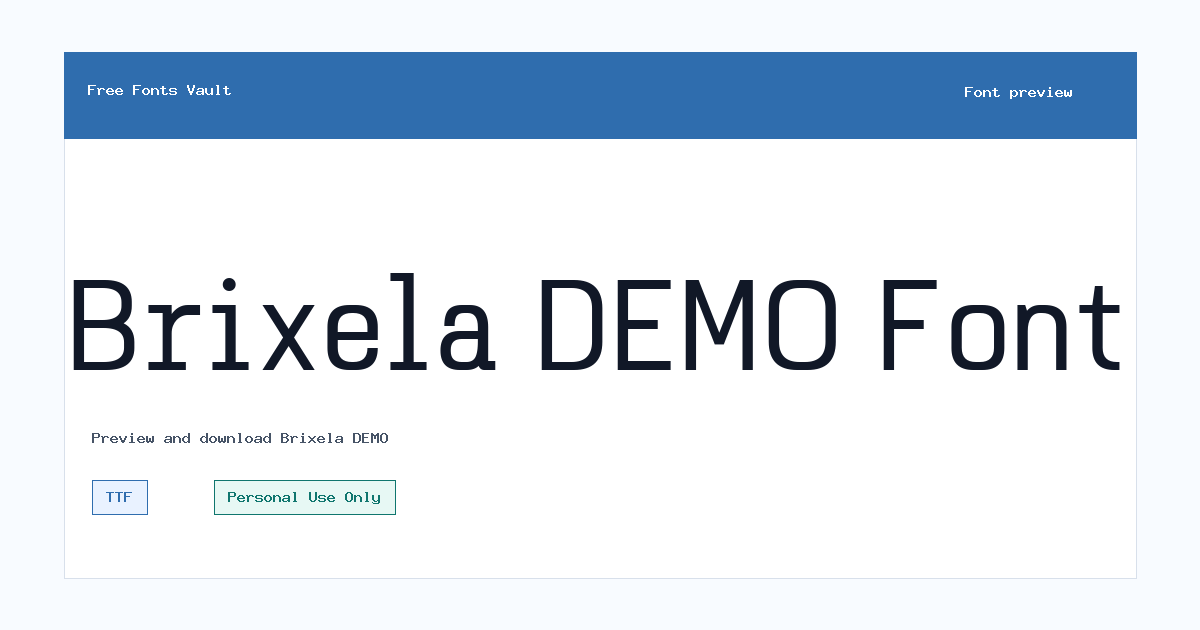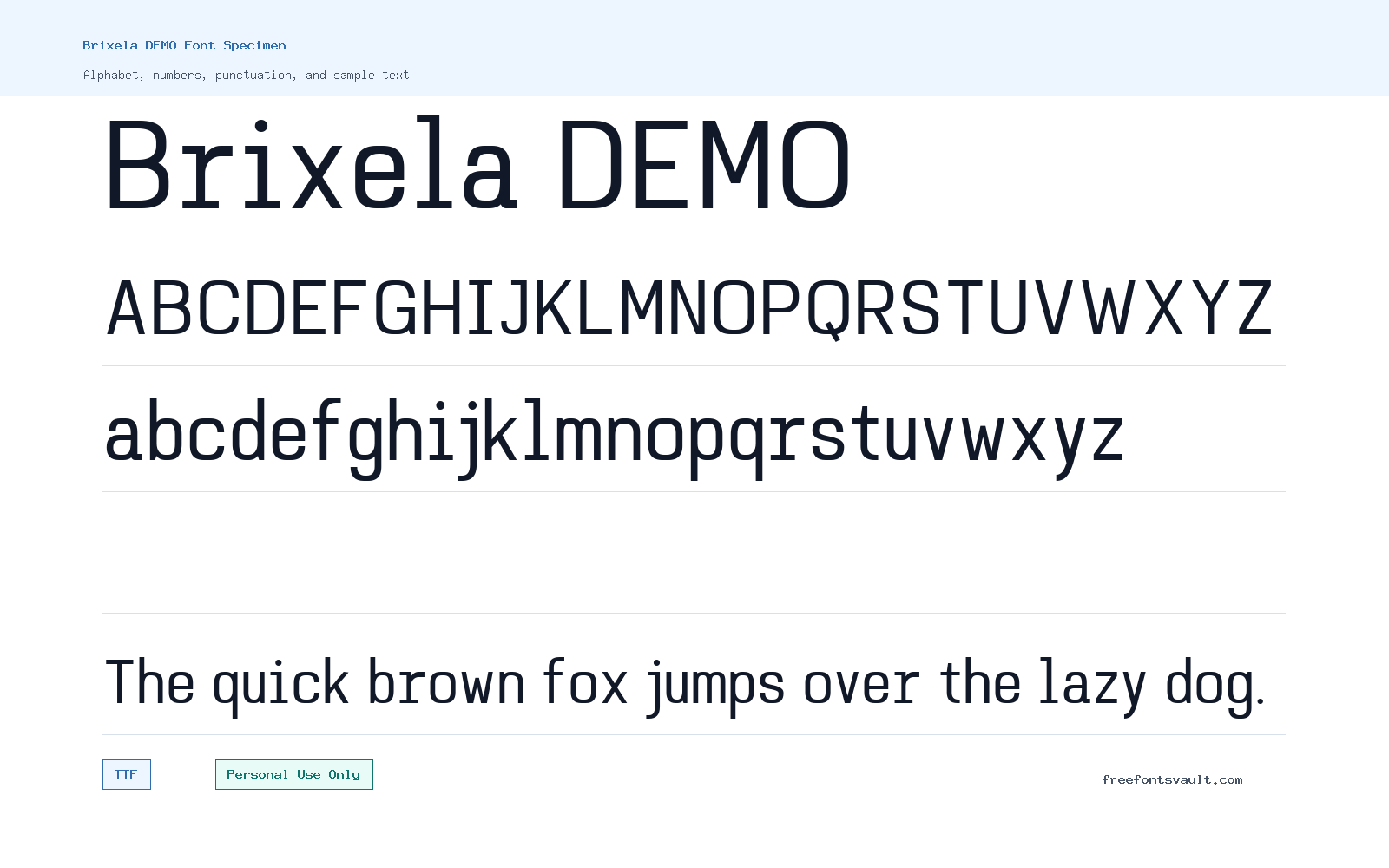
Brixela DEMO
- Designer Say Studio
Brixela DEMO font.
Brixela DEMO is a personal-use sans serif font family from Say Studio, offered in regular and italic TTF styles. It is useful for testing clean headline layouts, logo drafts, posters, social graphics, and web mockups before deciding whether the full licensed version fits a project.
For practical use, start by testing Brixela DEMO in the preview box with the exact words you plan to design. Short names, brand drafts, poster headlines, quotes, menu titles, and section headings will usually reveal more about a font than a generic alphabet sample. Try both the regular and italic styles: the regular cut can help you judge the main voice of the family, while the italic can be useful for contrast, emphasis, subtitles, pull quotes, or secondary text in a layout. If you are building a logo concept, check spacing carefully at large sizes and look at difficult letter combinations such as AV, To, Wa, ry, and double letters. Demo fonts sometimes have limitations compared with a full family, so do not assume the demo has every character, weight, or OpenType feature you may need.
Brixela DEMO can work well in early design exploration for branding concepts, poster compositions, editorial headers, packaging mockups, website hero text, presentation covers, and social media artwork. Keep the font’s role focused. A sans serif demo font can look clear in headings, but long paragraphs need extra testing for comfort, spacing, punctuation, and readability. If your design includes body copy, pair Brixela DEMO with a proven text face rather than forcing it to carry every level of the layout. A neutral serif, a humanist sans serif, or a quiet system font can give longer text more stability while Brixela DEMO handles the display moments.
- Sans serif demo family suited to testing headings, logo drafts, posters, and interface mockups.
- Logo concept drafts and brand direction tests where the final license has not yet been chosen.
- Poster titles, event graphics, quote cards, and short display text.
- Website hero sections, landing page mockups, presentation covers, and social media layouts.
- Pairing tests with serif, humanist sans serif, or system fonts for longer supporting copy.
Who designed Brixela DEMO?
The designer is listed as Say Studio.
Is Brixela DEMO good for body text?
Test it carefully before using it for longer reading. It is safer to use it for headings, short labels, and display text, then pair it with a dedicated text font for paragraphs.